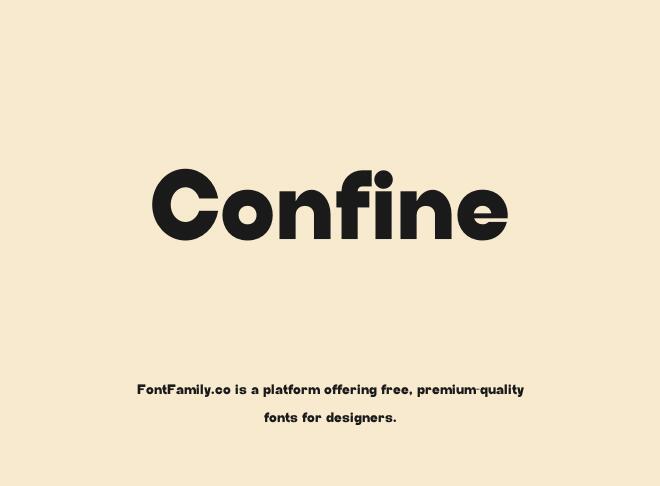
Confine Font
Confine Font is a modern, geometric typeface with a minimalistic touch that stands out in display applications. Its clean lines and sharp edges echo the precision and clarity of modern design aesthetics. This font is reminiscent of the minimalist style of popular fonts like Futura and Helvetica, but with a unique twist that makes it stand out. The Confine Font is a perfect choice for designers looking to add a modern and fresh touch to their projects, from branding and logo design to editorial layouts and web design. Its versatility and sleek design make it a go-to font for a wide range of creative projects. With its Open Font License, it's free to use and a valuable addition to any designer's toolkit.